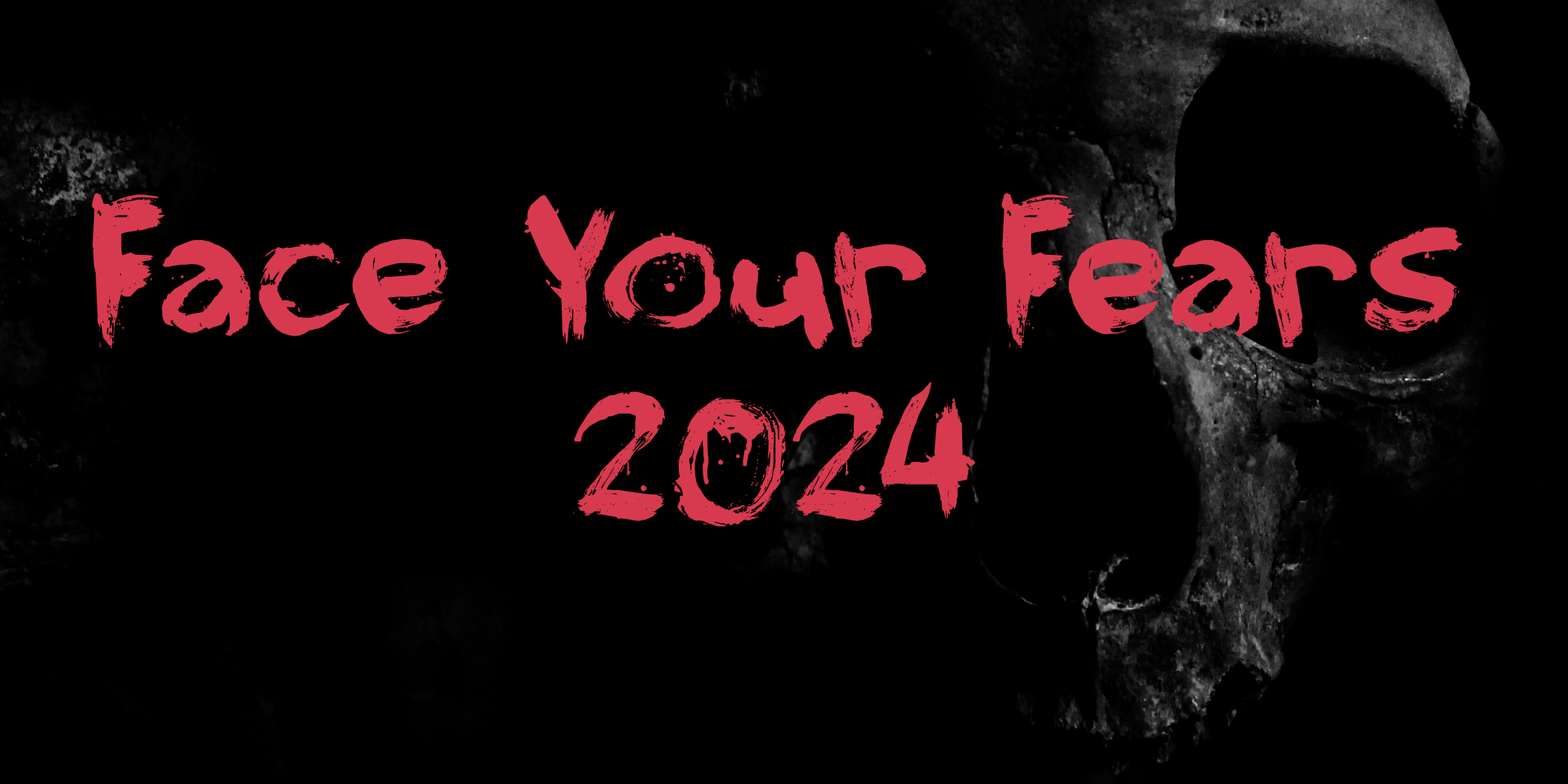
Face Your Fears 2024 Font is perfect for horror movie titles, Halloween event promotions, haunted house attractions, dark gaming graphics, psychological thriller book covers, escape room branding, Gothic fiction publications, paranormal investigation shows, nightmare-themed merchandise, and any project requiring spine-chilling atmosphere with terrifying visual impact and bone-chilling psychological intensity.
What makes Face Your Fears 2024 Font exciting is its terrifying presence and psychological intensity that captures the primal fear responses and the dark fascination of horror entertainment. The typeface features menacing, distorted letterforms with unsettling textures and nightmarish details that evoke the creeping dread of psychological thrillers and the bone-chilling atmosphere of supernatural horror. Its frightening character design speaks to audiences who appreciate horror aesthetics, thrilling experiences, and the cathartic release of controlled fear, making it perfect for entertainment brands seeking to communicate genuine terror, psychological suspense, and the addictive excitement of confronting our deepest fears through safe horror experiences.
Face Your Fears 2024 Font family includes regular and bold weights with complete character sets featuring uppercase and lowercase letters, horror-inspired numerals, spine-chilling punctuation marks, and terrifying decorative elements. The typeface incorporates psychological horror design principles and fear-inducing visual techniques that enhance its frightening appearance while maintaining excellent readability across all horror applications and dark entertainment projects.
Whether you're creating horror entertainment branding, designing Halloween marketing campaigns, or developing psychological thriller content, Face Your Fears 2024 Font Free Download provides the perfect typographic foundation that delivers genuine scares and psychological impact. The font's terrifying appeal and horror character make it particularly effective for haunted attractions, horror productions, and dark entertainment venues. Its nightmarish aesthetics translate powerfully across movie posters, horror gaming interfaces, and digital platforms, ensuring your brand communicates the kind of authentic terror and psychological intensity that resonates with horror enthusiasts seeking spine-tingling experiences.